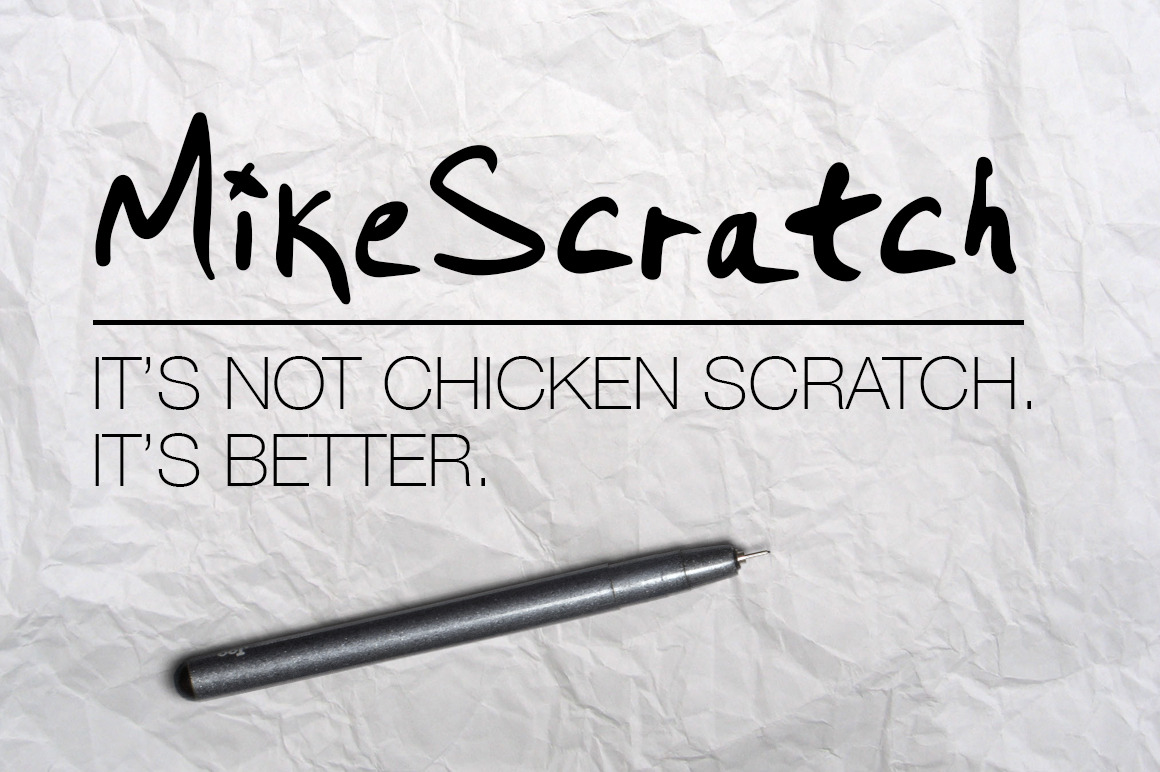
MikeScratch font
My momma always said I had chicken scratch handwriting. Now it's a font. So take that momma.
MikeScratch. It's not chicken scratch. It's better.
Now you can scratch yourself. Go scratch.